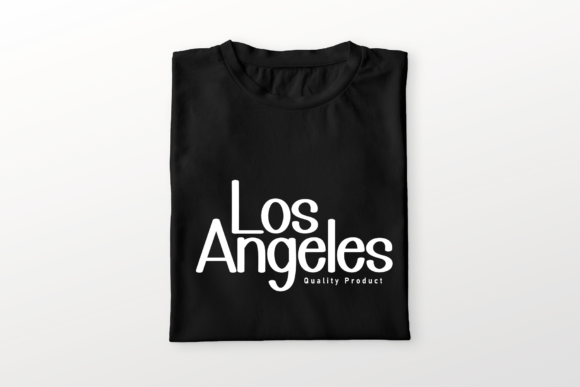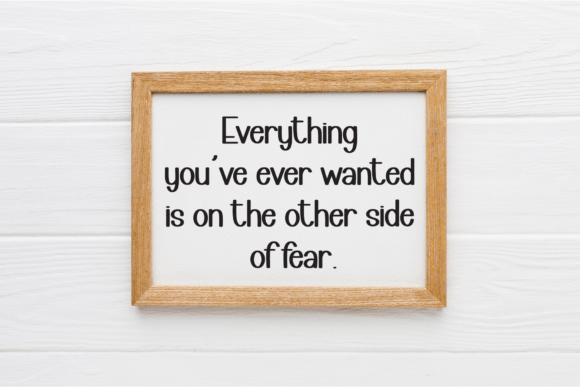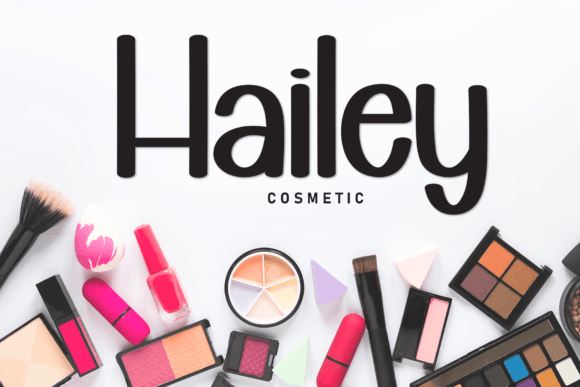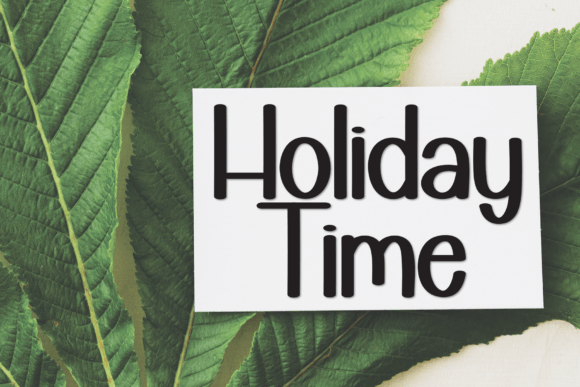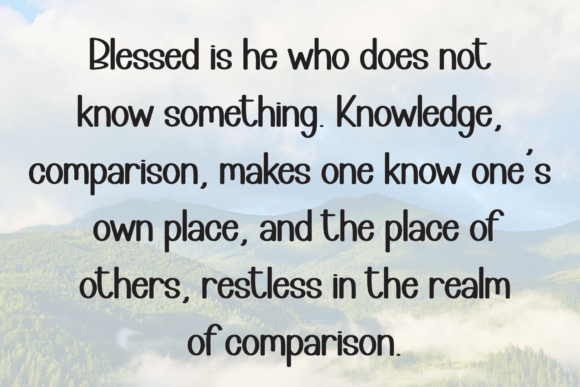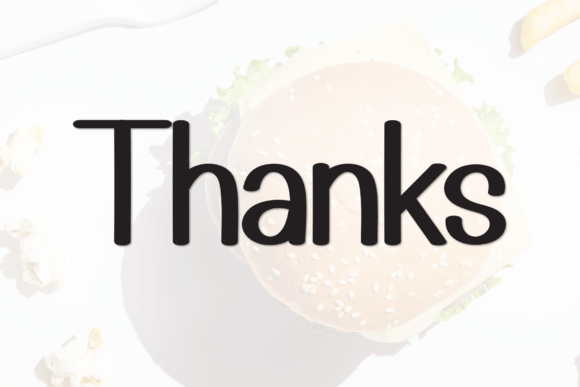
Introduction to Minimum Hamburger Font Font
Fonts play a crucial role in design, and the Minimum Hamburger Font font is a typeface that brings both character and versatility to any project. Whether you’re working on a branding project, a website, or a print design, the Minimum Hamburger Font font offers a unique style that can elevate your work.
Introducing a charmingly endearing handwritten display font, perfect for encapsulating a personal and friendly touch in your design projects.
Radiating whimsical appeal, our designerβs creation is a beguiling blend of sweet and lively, making it an excellent choice for wedding invites, heartfelt greetings, and any design seeking a sprinkle of fun Adorn your creative work with this captivating font and see its ingenious charm bring your design narratives to life.
Key Features of Minimum Hamburger Font Font
Why Choose Minimum Hamburger Font Font?
The Minimum Hamburger Font font is more than just a typeface β it’s a design tool that helps you communicate your message with style and clarity. Its unique character set and versatile design make it suitable for a wide range of applications, from elegant invitations to bold headlines.
With its carefully crafted letterforms and balanced proportions, the Minimum Hamburger Font font ensures readability and visual appeal across all mediums.
What makes Minimum Hamburger Font font special?
The Minimum Hamburger Font font stands out with its unique design, exceptional readability, and versatility across various design applications.